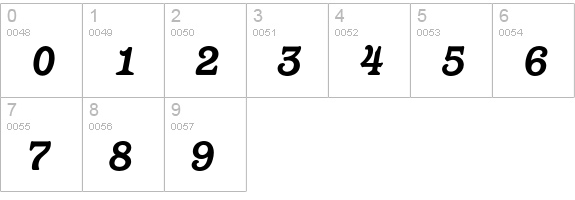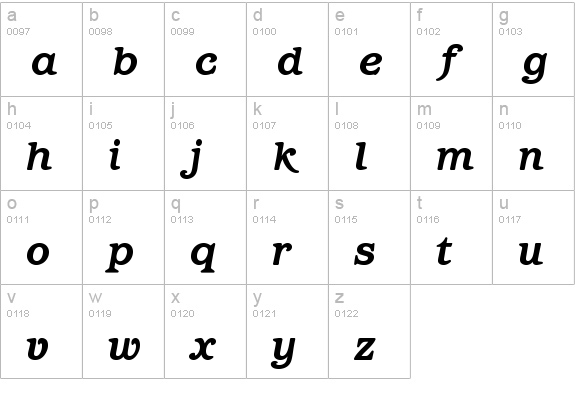
Barcelona* Bold Italic is a strong, high-contrast, italic variant in the Barcelona* typeface family \xE2\x80\x94 well suited to headlines, attention-grabbing titles, and strong calls-to-action.
Experience the elegance and sophistication of Barcelona* Bold Italic font, a sleek and modern typeface designed to make a statement. With its bold yet refined curves and distinctive italic styling, Barcelona* exudes confidence and style on any project it graces. This versatile font is perfect for a wide range of design applications, from branding and advertising to editorial and web design. Its bold presence commands attention, while its italicized form adds a touch of flair and sophistication. Barcelona* Bold Italic font is sure to elevate your designs and leave a lasting impression on your audience. Best of all, Barcelona* Bold Italic font is available for free download at FontsMarket.com. So why wait? Elevate your designs with this stunning font today and make a bold statement with Barcelona*.